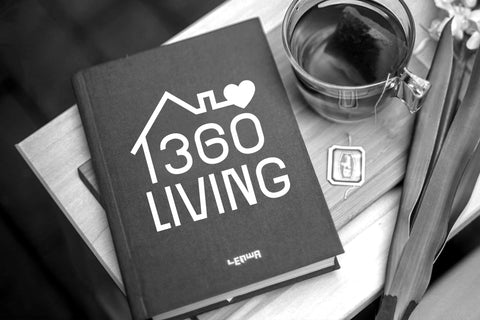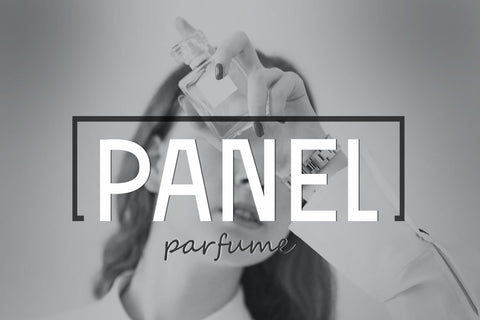
Pamson - Sans Serif Font
Introducing a new fonts "Pamson" is a simple and elegant sans serif font.
This simple look will appeal to a wide range of crafty ideas, from letterheads and titles, to stationery..
- Uppercase and lowercase on Allcaps
- Numbers
- Symbols
- Multilingual Accent